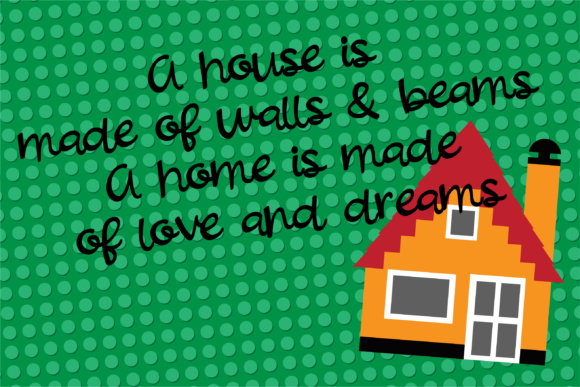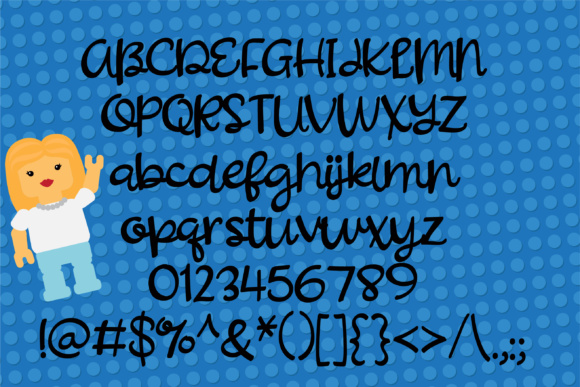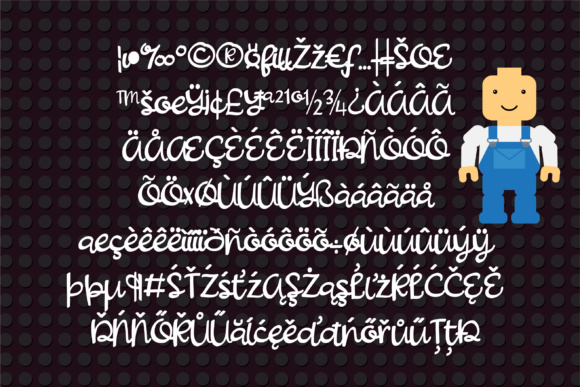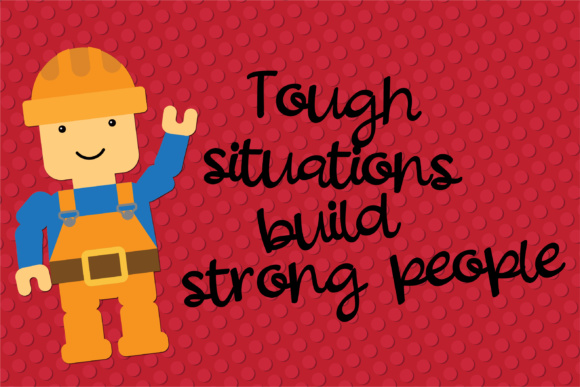
HomeScript FontsBuild Me Up Font Script Fonts Build Me Up Font FacebookXPinterestWhatsApp Build Me Up Font Poster 2 Build Me Up Font Poster 3 Build Me Up Font Poster 4 About Build Me Up Font This casual hand-written font has a bit of a bouncy baseline. DOWNLOAD NOW People also explored Misrelly Font Lovina Script Font Beautiful Bloom Font I Am Cool Font Spectrum Font The Farmhouse Font Carissa Font Disstrap and Disstrack Font The Piraglen Font 309 0 TagsBuild Me Up Font Previous articleRejuvenation FontNext articleCatawampus Font LEAVE A REPLY Cancel reply Comment: Please enter your comment! Name:* Please enter your name here Email:* You have entered an incorrect email address! Please enter your email address here Website: Save my name, email, and website in this browser for the next time I comment. Personal Use Free Hello Sister Personal Use Free Read more about this font Charlie Personal Use Free Read more about this font The Most Beautiful Gift Personal Use Free Read more about this font Oatmeal Personal Use Free Read more about this font BLOG How to Cut Any Font on Cricut: Convert a Font to SVG (Free) Turn any font into a clean SVG so it cuts crisp on Cricut - a quick 3-step workflow using a free font-to-SVG tool. The 10 Best Handwriting Fonts to Add Personality to Your Designs Where to Buy American Fonts Online in 2024 To increase your work productivity, choose the most readable fonts.